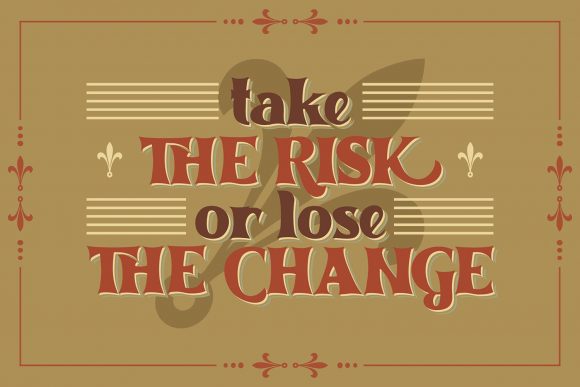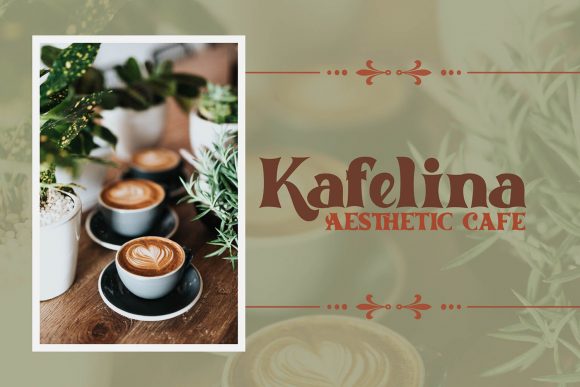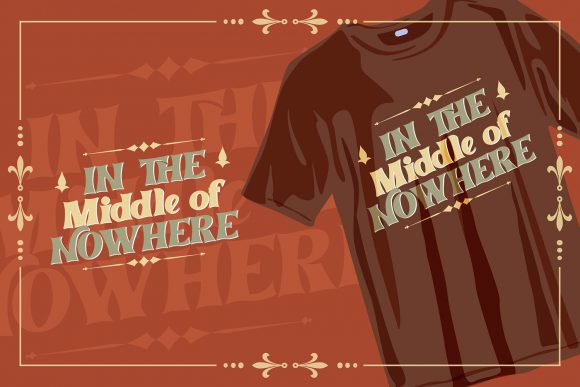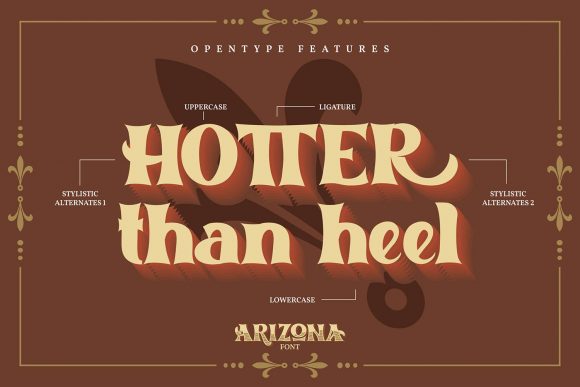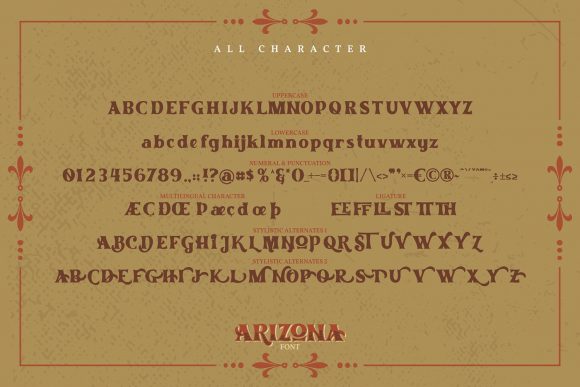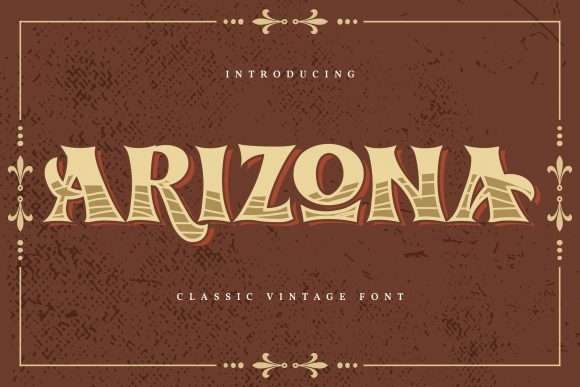
Arizona Font: Elevate Your Designs with Elegance and Versatility
Are you searching for a font that exudes elegance, sophistication, and versatility? Look no further than the Arizona Font. This stunning serif font is perfect for designers and crafters who want to create beautiful and eye-catching designs for various projects. In this article, we’ll dive into the features and benefits of the Arizona Font and explore how you can use it to take your designs to the next level.
What is Arizona Font?
Arizona is an elegant and bold serif font that is designed to make a statement. Its incredibly versatile style makes it perfect for a wide range of design projects, from wedding invitations and stationary art to social media posts and more. The font’s classic serif design gives it a timeless look that will never go out of style, while its bold lines and elegant curves make it stand out from the crowd.
Key Features of Arizona Font
- PUA Encoded: The Arizona Font is PUA (Private Use Area) encoded, which means you can access all of the glyphs and swashes with ease. This makes it easy to use the font in your designs and customize it to your heart’s content.
- Elegant and Bold: The Arizona Font is both elegant and bold, making it perfect for designs that require a touch of sophistication and glamour.
- Versatile: The font’s versatile style makes it suitable for a wide range of design projects, from wedding invitations and stationary art to social media posts and more.
Uses for Arizona Font
The Arizona Font is perfect for a wide range of design projects, including:
- Wedding Invitations: Create beautiful and elegant wedding invitations that will set the tone for the big day.
- Stationary Art: Use the Arizona Font to create stunning stationary art, including greeting cards, thank you cards, and more.
- Social Media Posts: Make your social media posts stand out with the Arizona Font’s bold and elegant design.
- Signage: Use the Arizona Font to create eye-catching signage for businesses, events, and more.
- Branding: Use the Arizona Font to create a cohesive brand identity that exudes elegance and sophistication.
Tips for Using Arizona Font
Here are some tips for using the Arizona Font in your designs:
- Experiment with Different Sizes: The Arizona Font looks great in a variety of sizes, so experiment with different sizes to find the one that works best for your design.
- Pair with Other Fonts: The Arizona Font pairs well with other fonts, so try pairing it with a sans-serif font for a bold and elegant look.
- Use Swashes and Glyphs: The Arizona Font’s PUA encoding makes it easy to access all of the glyphs and swashes, so don’t be afraid to get creative and add some extra flair to your designs.
The Arizona Font is a stunning serif font that is perfect for designers and crafters who want to create elegant and versatile designs. With its PUA encoding, elegant and bold design, and versatile style, this font is sure to become a favorite in your design arsenal. Whether you’re creating wedding invitations, stationary art, social media posts, or more, the Arizona Font is the perfect choice. So why wait? Download the Arizona Font today and start creating beautiful designs that will leave a lasting impression.